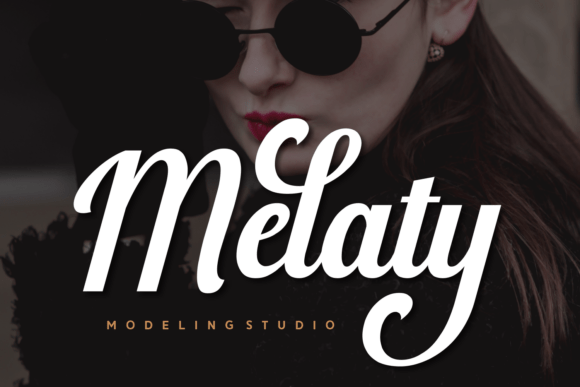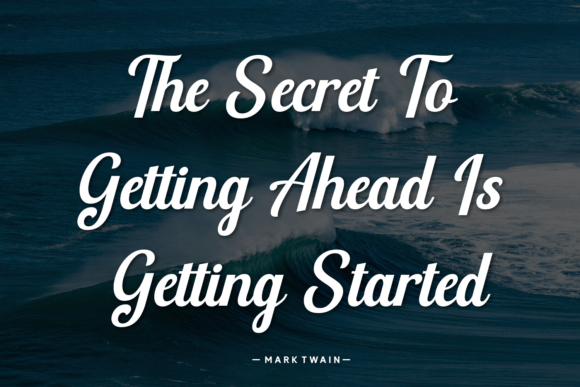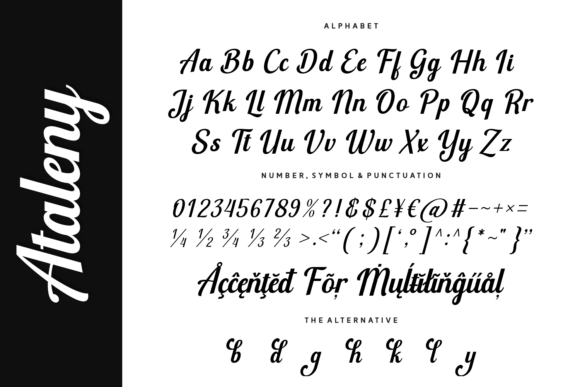
Ataleny Font: Elevate Your Design with Elegance and Sophistication
In the world of typography, fonts play a crucial role in defining the visual identity of a brand, product, or creative project. With the vast array of fonts available, finding the perfect one that exudes elegance, sophistication, and modernity can be a daunting task. However, if you’re looking for a bold and modern script font that commands attention, look no further than Ataleny Font. In this article, we’ll explore the features, benefits, and uses of Ataleny Font, and why it’s an excellent choice for designers and crafters.
What is Ataleny Font?
Ataleny Font is a bold modern script font that boasts elegant curves and a confident flow. This stunning font combines the sophistication of classic calligraphy with a sharp contemporary edge, making it perfect for luxury branding, magazine headers, fashion logos, and statement packaging. Its smooth swashes and polished look give your design a premium, editorial feel, ideal for creatives looking to elevate their visual identity with style and clarity.
Key Features of Ataleny Font
- Elegant Curves and Confident Flow: Ataleny Font features beautiful, flowing curves that exude elegance and sophistication. Its confident flow makes it perfect for headlines, titles, and statements that demand attention.
- Classic Calligraphy with a Modern Edge: This font seamlessly blends traditional calligraphy with a sharp, contemporary twist, making it versatile and modern.
- Smooth Swashes and Polished Look: Ataleny Font features smooth swashes and a polished look that gives your design a premium, high-end feel.
- Perfect for Luxury Branding: With its sophisticated and elegant design, Ataleny Font is ideal for luxury branding, high-end products, and exclusive services.
Uses of Ataleny Font
Ataleny Font is a versatile font that can be used in various design projects, including:
- Luxury Branding: Create a lasting impression with Ataleny Font, perfect for luxury brands, high-end products, and exclusive services.
- Magazine Headers: Add a touch of elegance and sophistication to your magazine headers, making them stand out on newsstands.
- Fashion Logos: Elevate your fashion brand with Ataleny Font, perfect for logos, labels, and packaging.
- Statement Packaging: Make a statement with Ataleny Font on your packaging, perfect for luxury products and high-end services.
Benefits of Using Ataleny Font
Using Ataleny Font in your design projects offers several benefits, including:
- Instant Recognition: Ataleny Font’s unique and elegant design ensures instant recognition and recall.
- Premium Look and Feel: This font gives your design a premium, high-end look and feel, perfect for luxury brands and high-end products.
- Versatility: Ataleny Font is versatile and can be used in various design projects, from luxury branding to statement packaging.
- Time-Saving: With Ataleny Font, you can save time and effort in creating custom lettering or typography from scratch.
Tips for Using Ataleny Font
To get the most out of Ataleny Font, here are some tips to keep in mind:
- Use it Sparingly: Use Ataleny Font sparingly to make a maximum impact. Overusing the font can dilute its effectiveness.
- Pair it with Other Fonts: Pair Ataleny Font with other fonts to create a unique and visually appealing typography.
- Experiment with Colors: Experiment with different colors to find the perfect combination that complements your brand or design.
In conclusion, Ataleny Font is a stunning bold modern script font that commands attention with its elegant curves and confident flow. With its classic calligraphy and sharp contemporary edge, this font is perfect for luxury branding, magazine headers, fashion logos, and statement packaging. Its smooth swashes and polished look give your design a premium, editorial feel, ideal for creatives looking to elevate their visual identity with style and clarity. Whether you’re a designer or crafter, Ataleny Font is an excellent choice for your next design project.